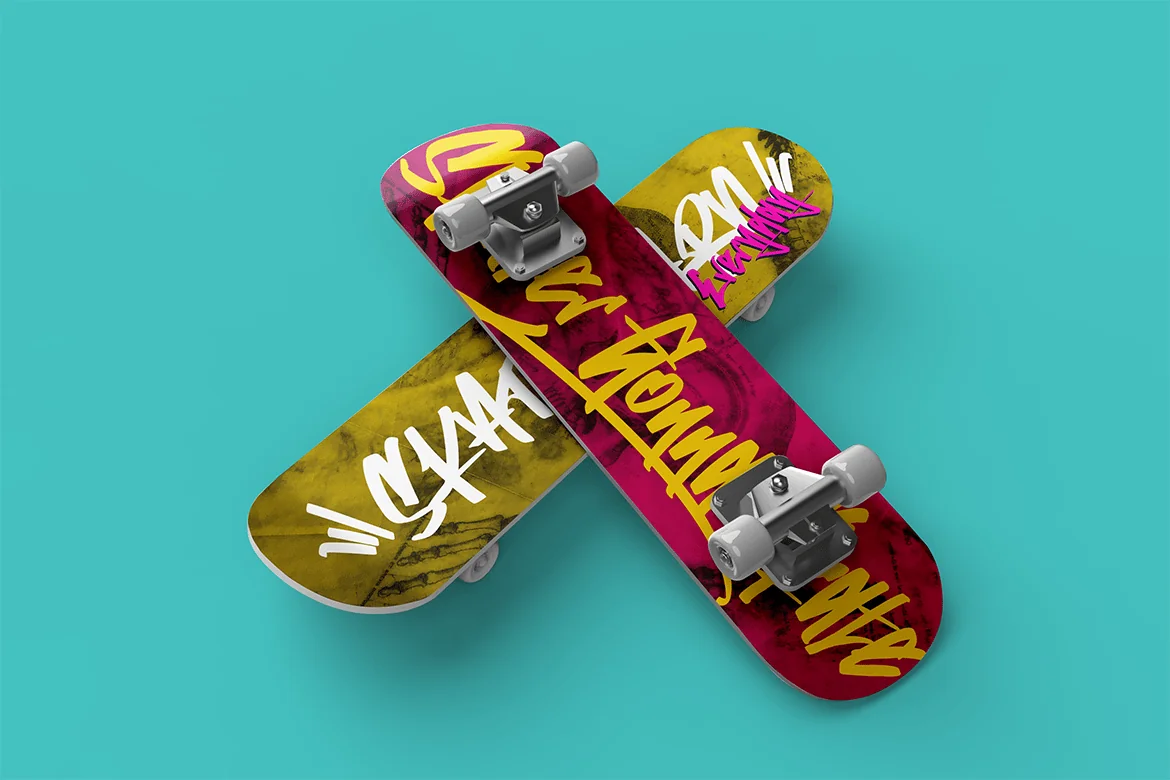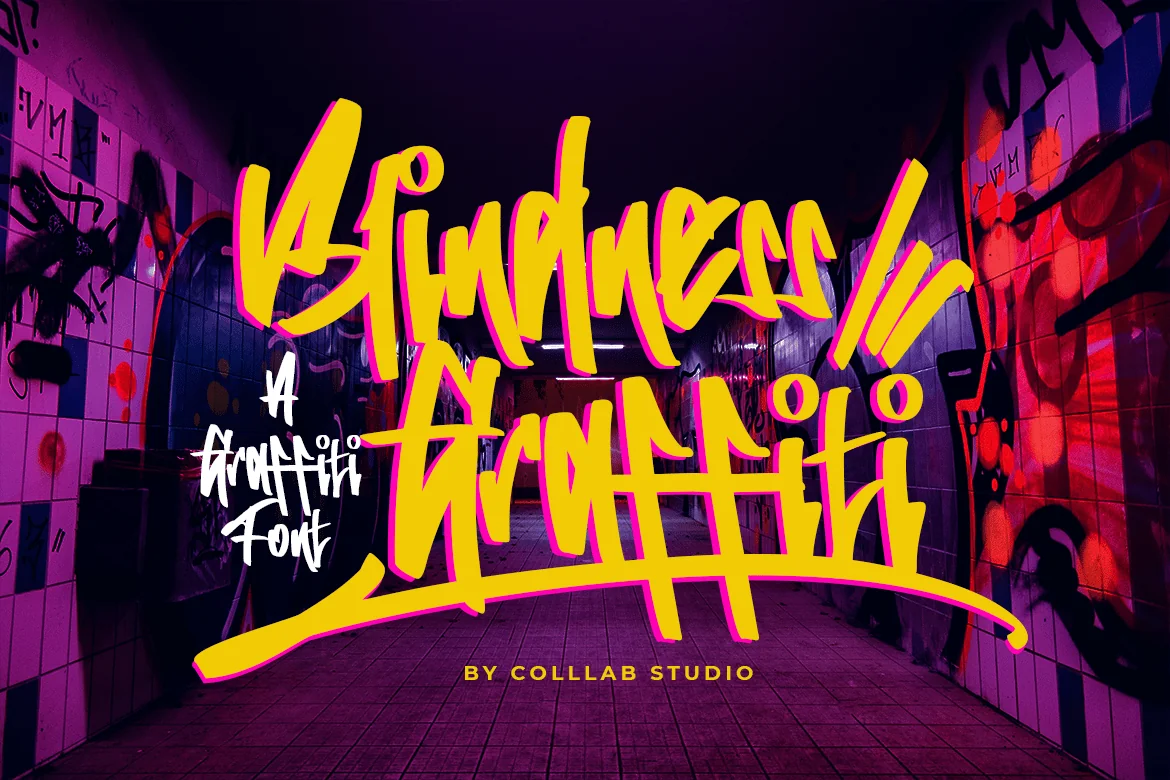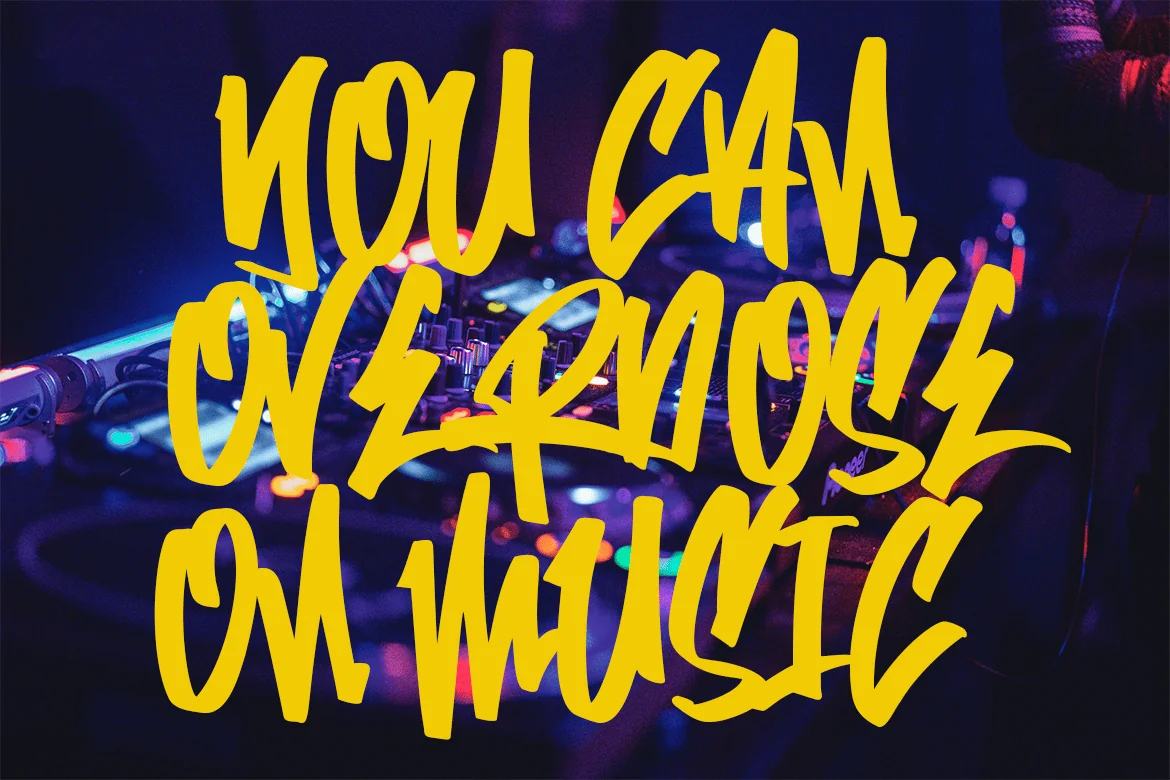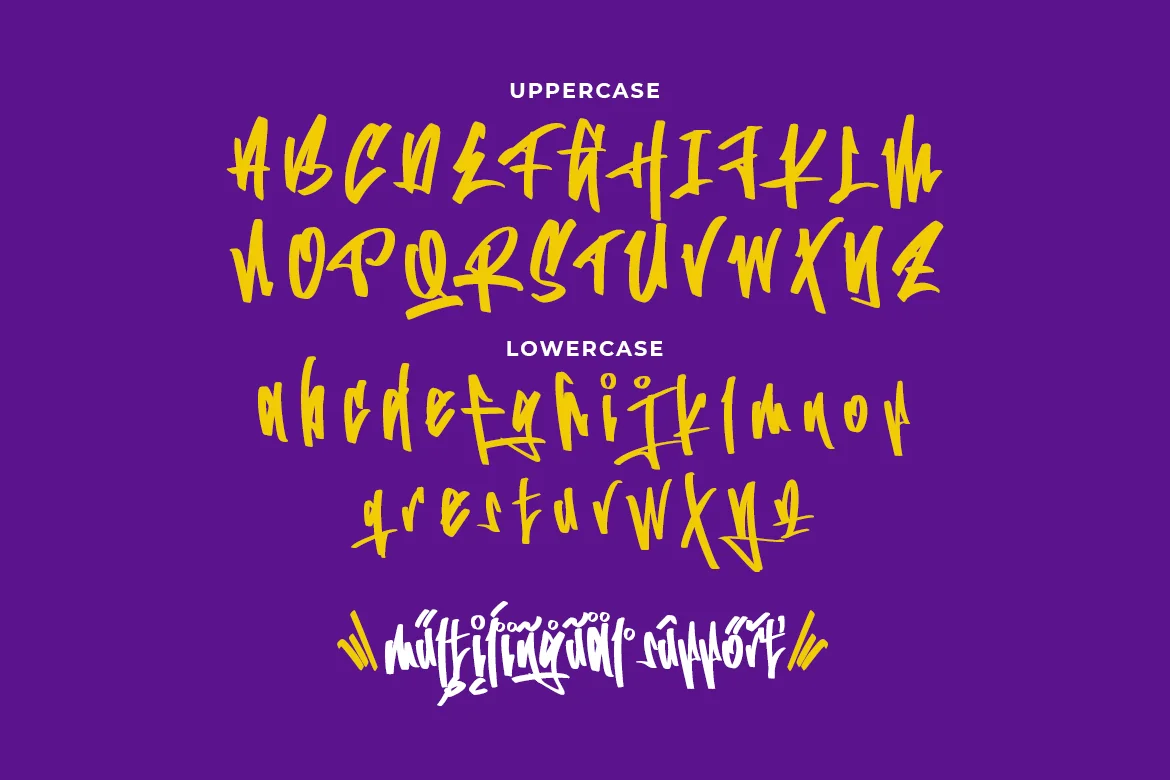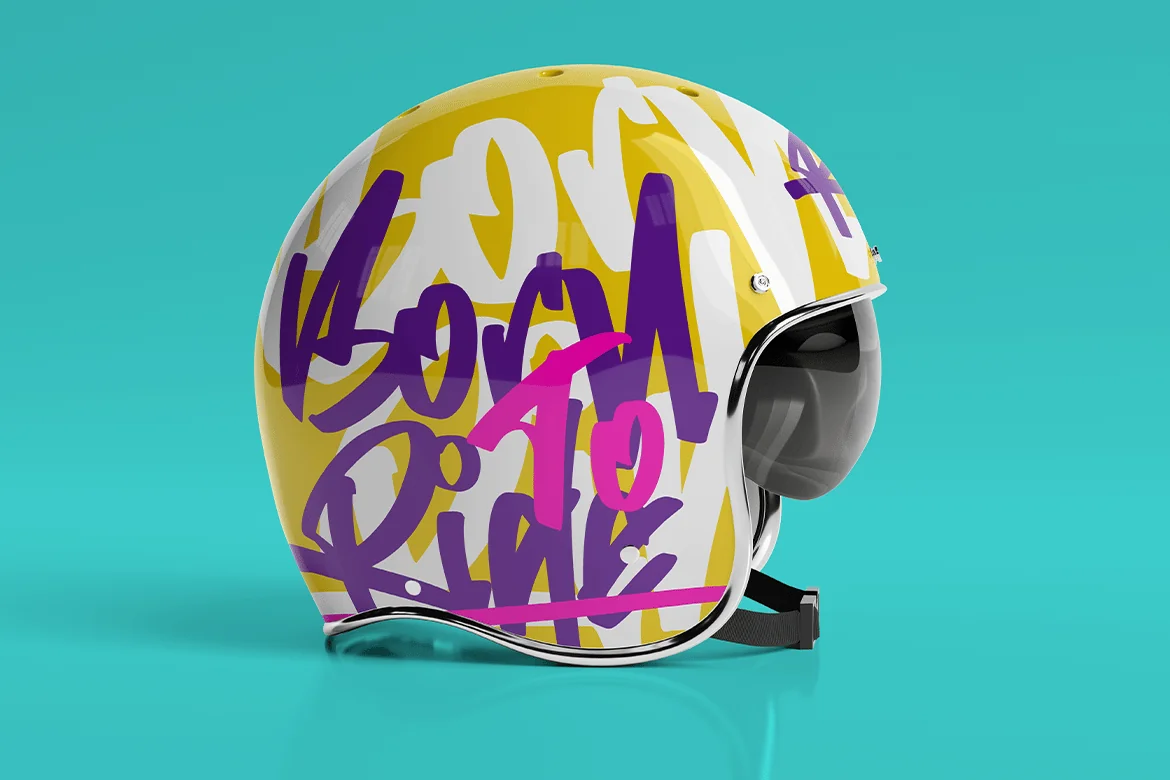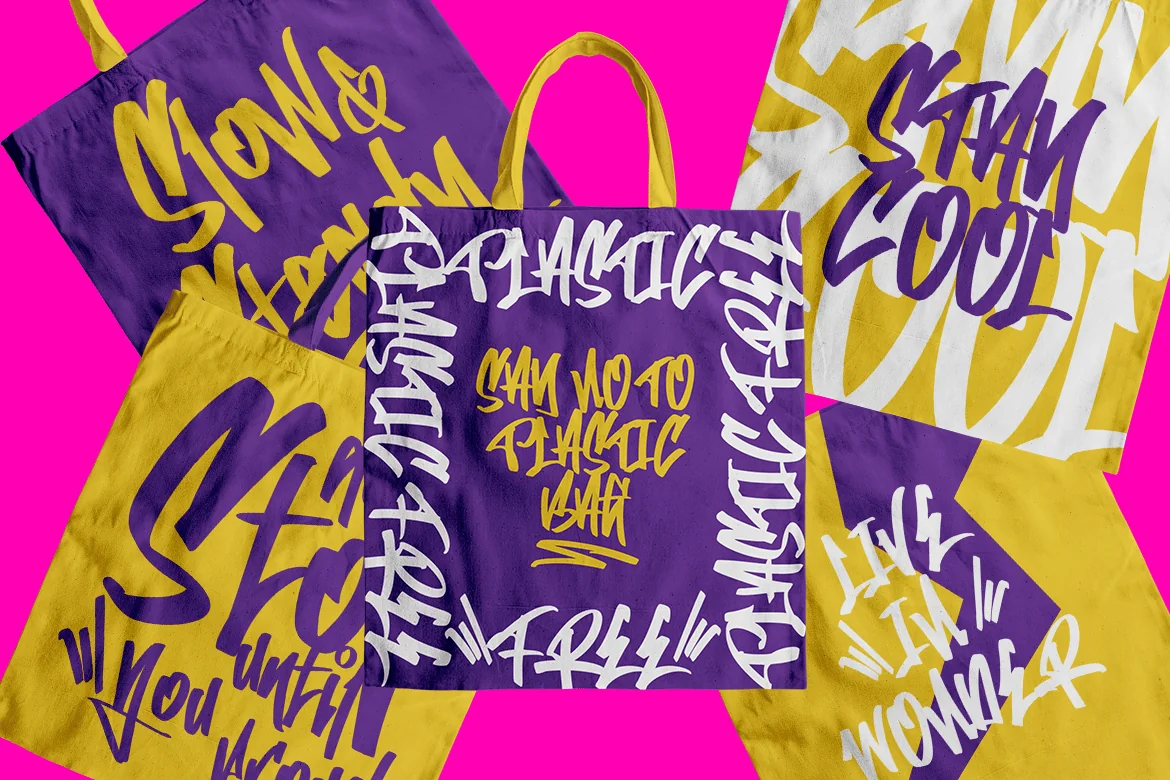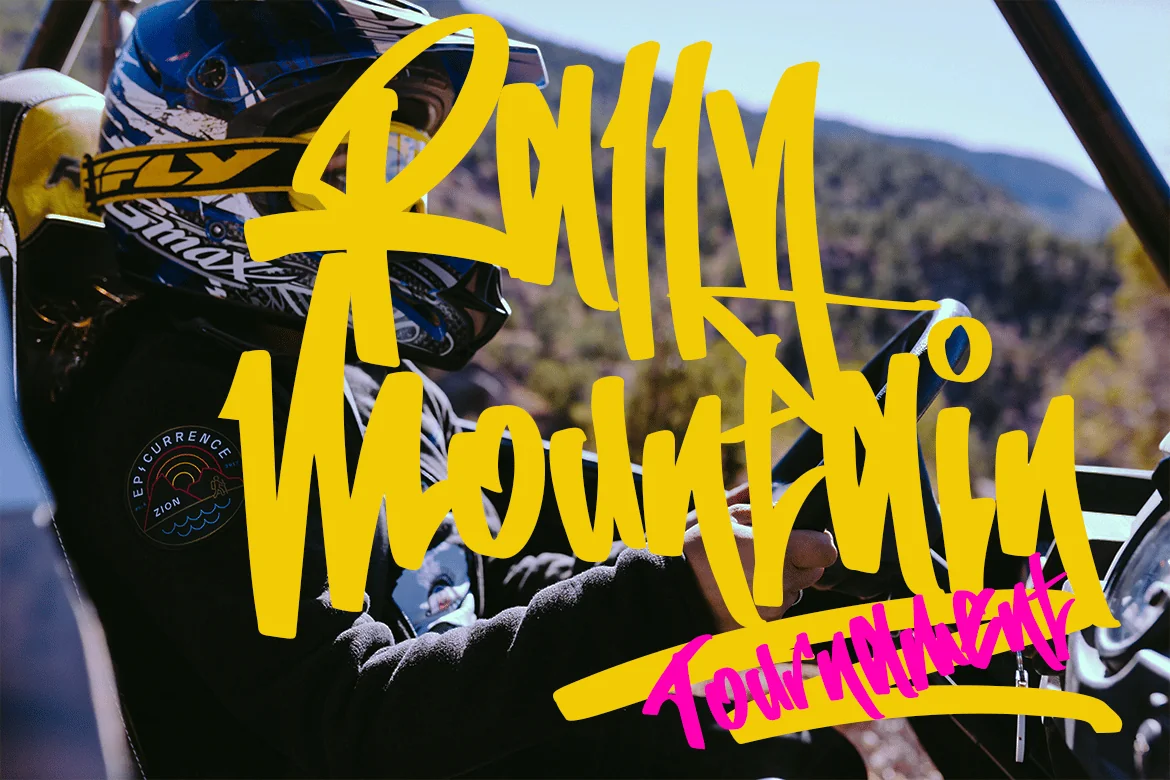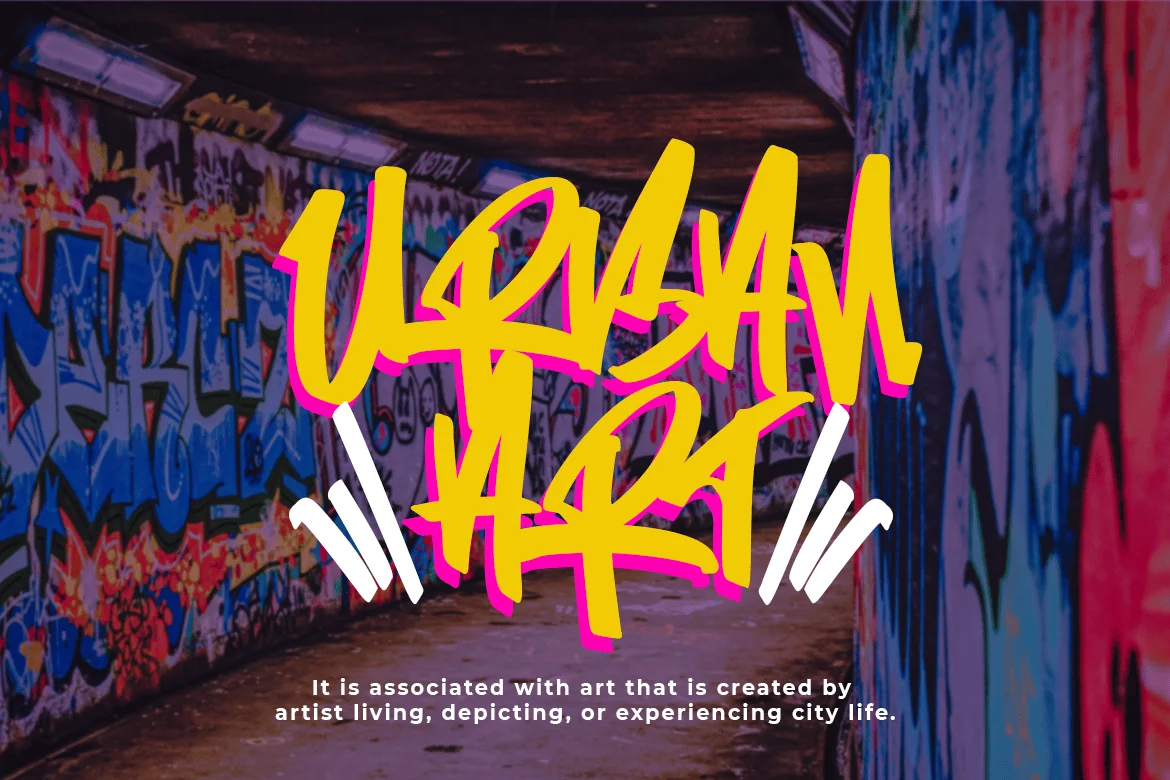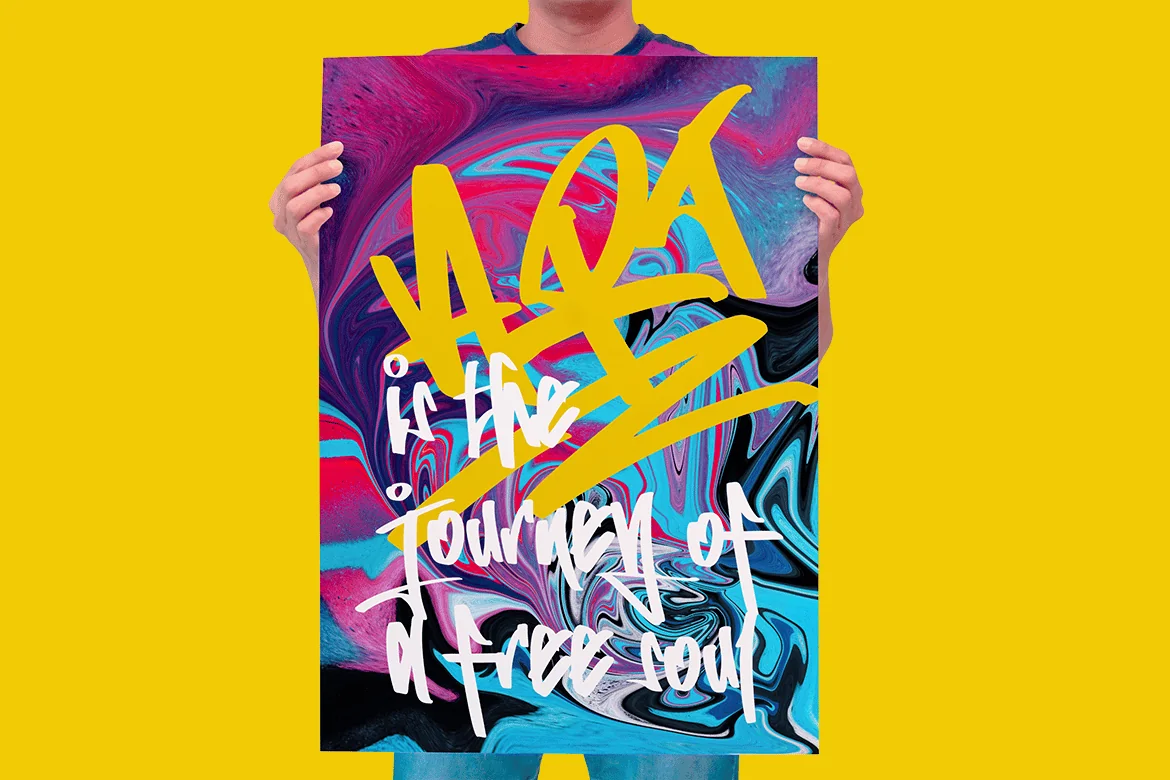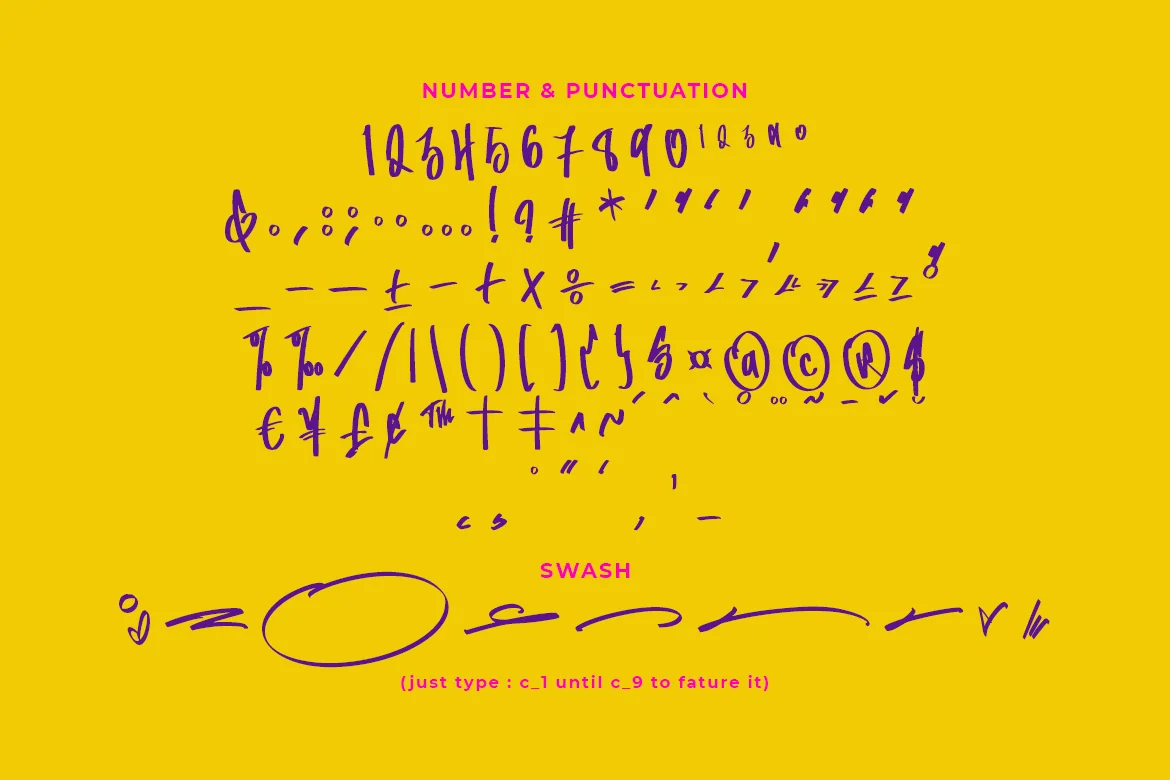
Blindness Graffiti – An Urban Font
**Blindness Graffiti ** is a graffiti display font that is suitable for design projects; playful theme, music theme, branding, poster, quotes, display, festival event, eye-catching social media posts, and any other designs.
Some swashes
Full uppercase and lowercase glyphs
Numbers, punctuations, and symbols